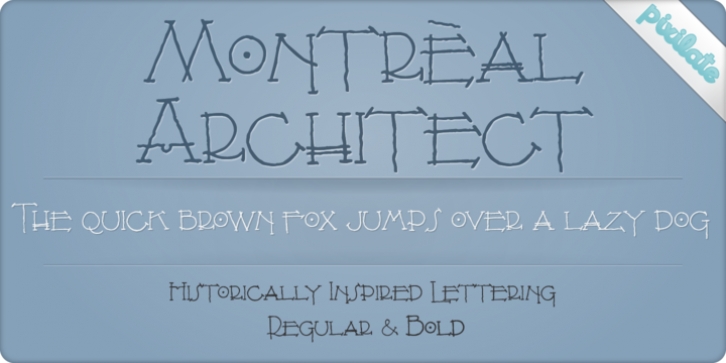
Publisher: Pixilate
Inspired on blueprints of old Montreal buildings, this font is a hand lettered, all caps face with influences from the arts & crafts movement.